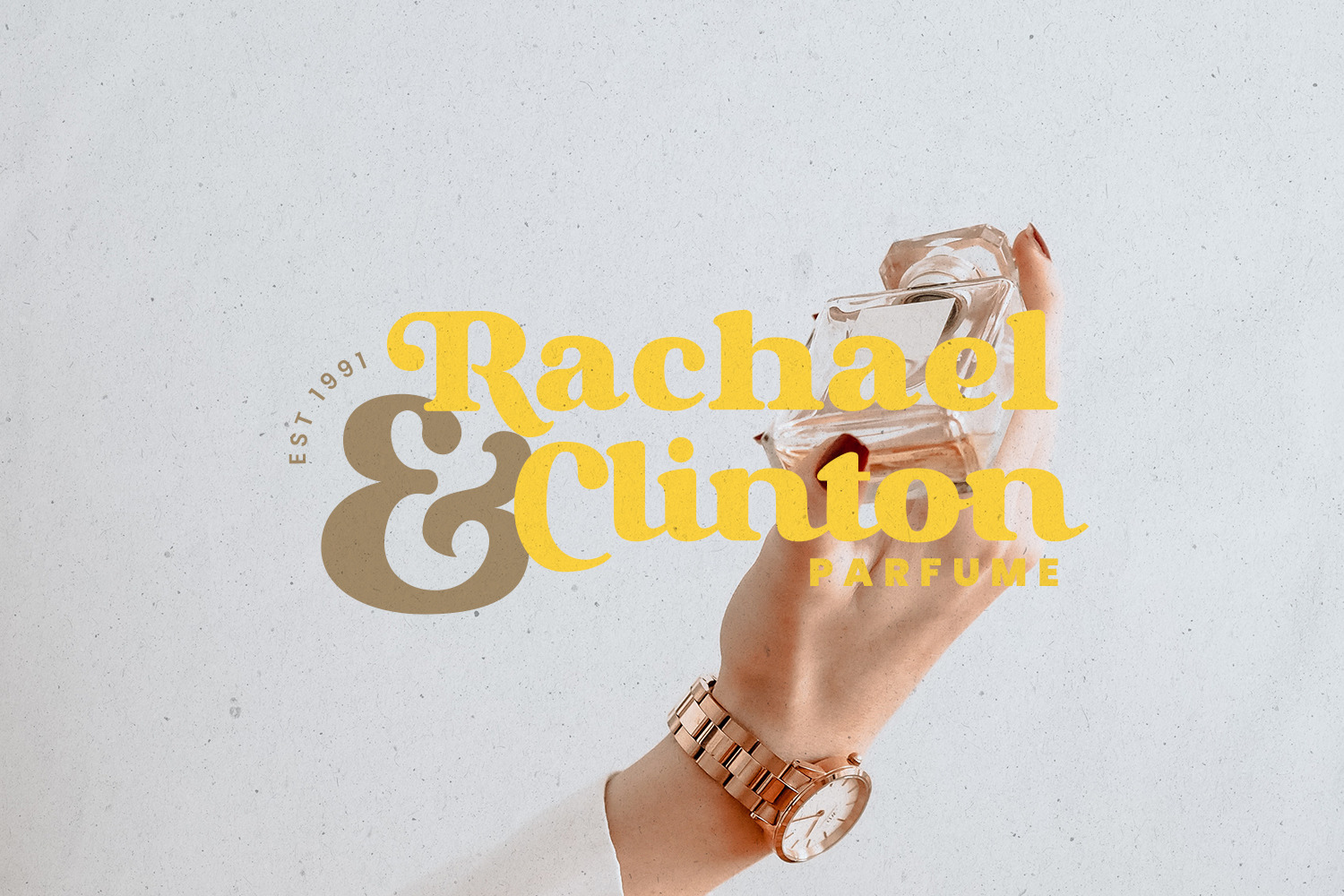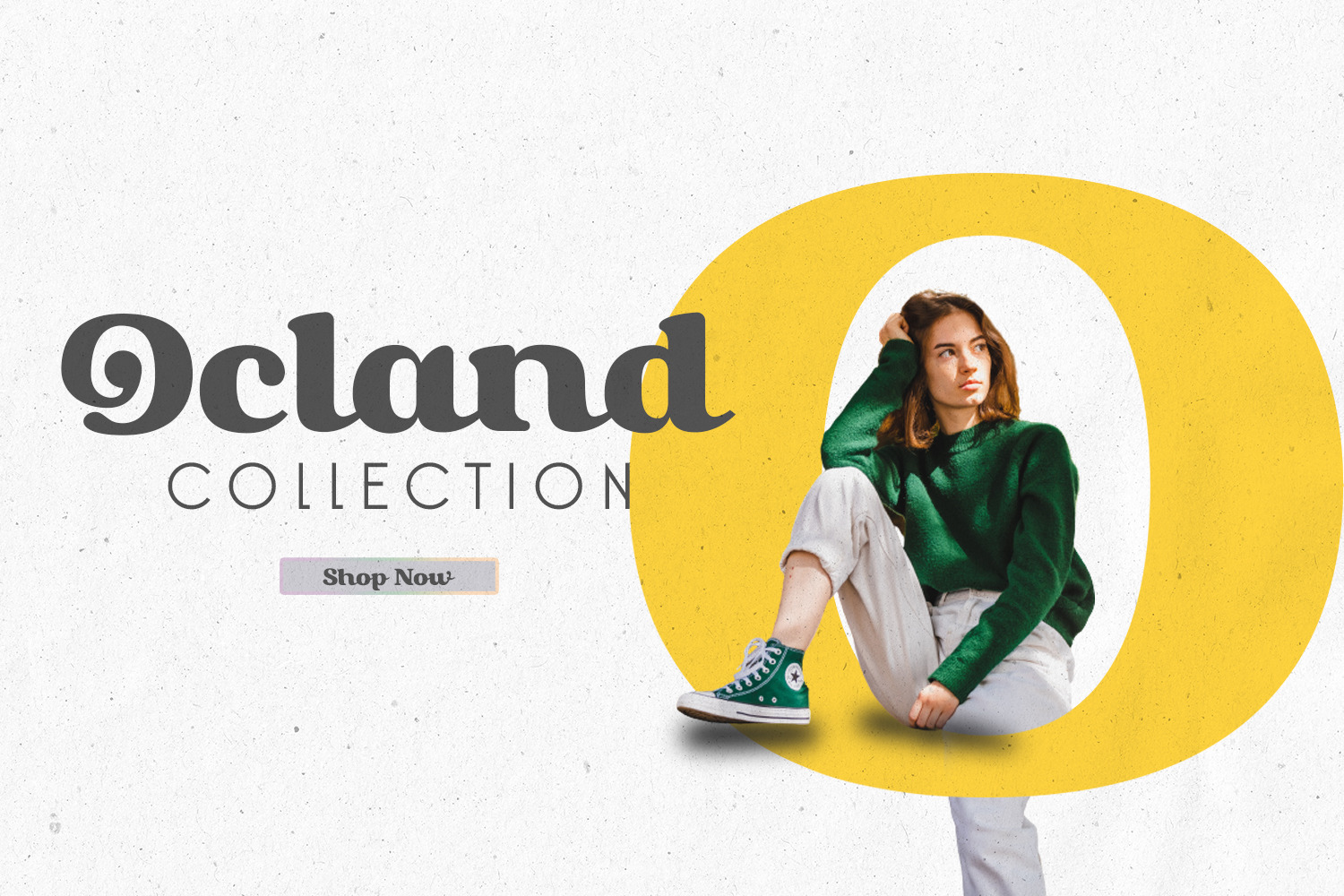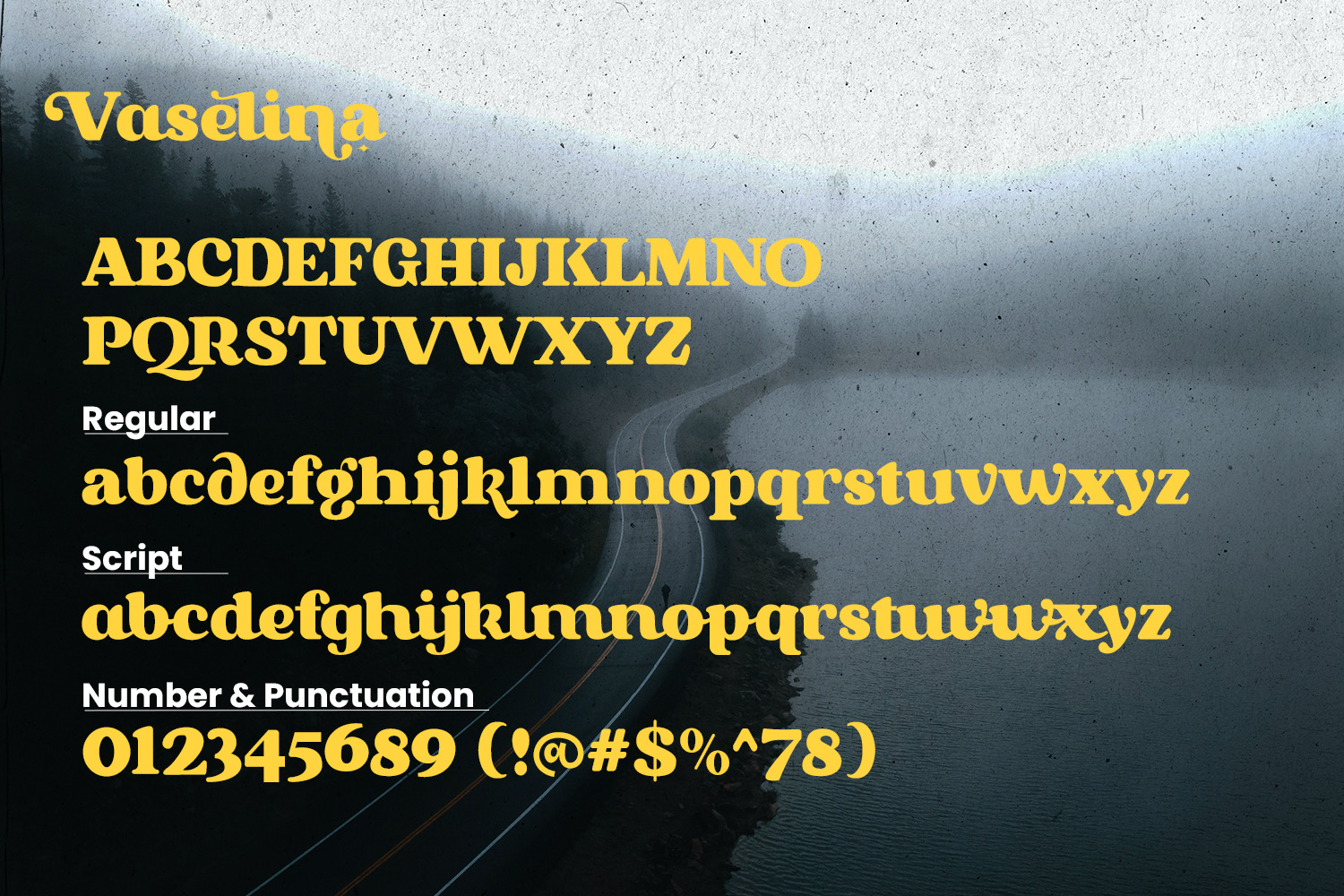
Vaselina Font
Introducing Vaselina Modern Duo Serif Typeface. Vaselina is a modern and stylish typeface, best used as a display for headings, logos, branding, magazines, product packaging and invitations. Gilnger come with clean lines and smooth curves give any project an extra touch of class.